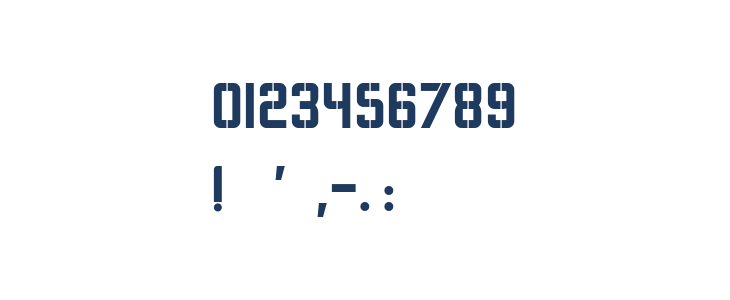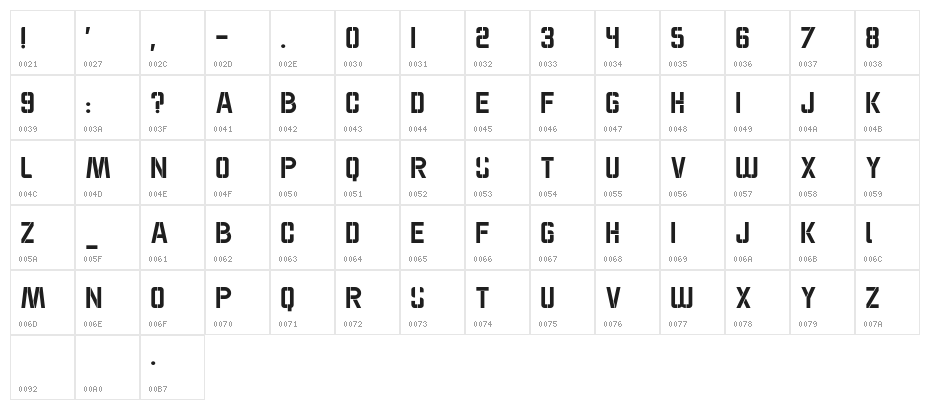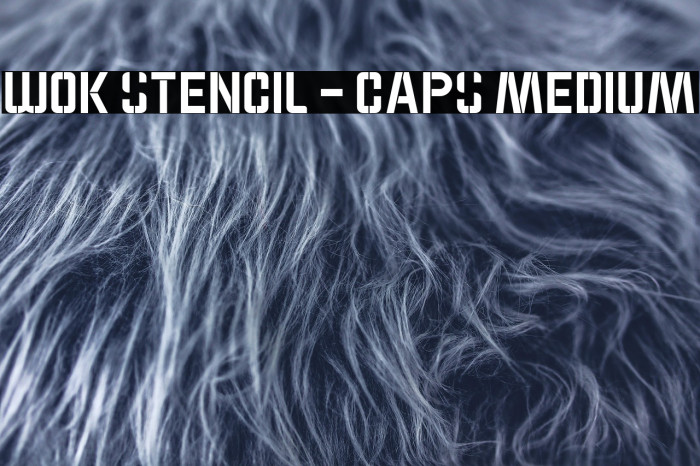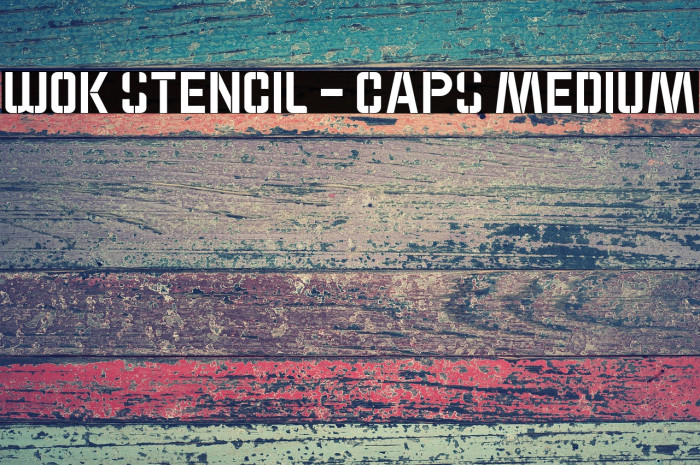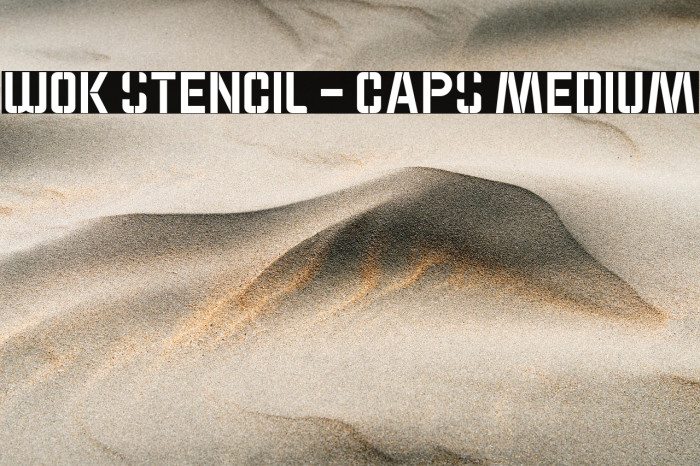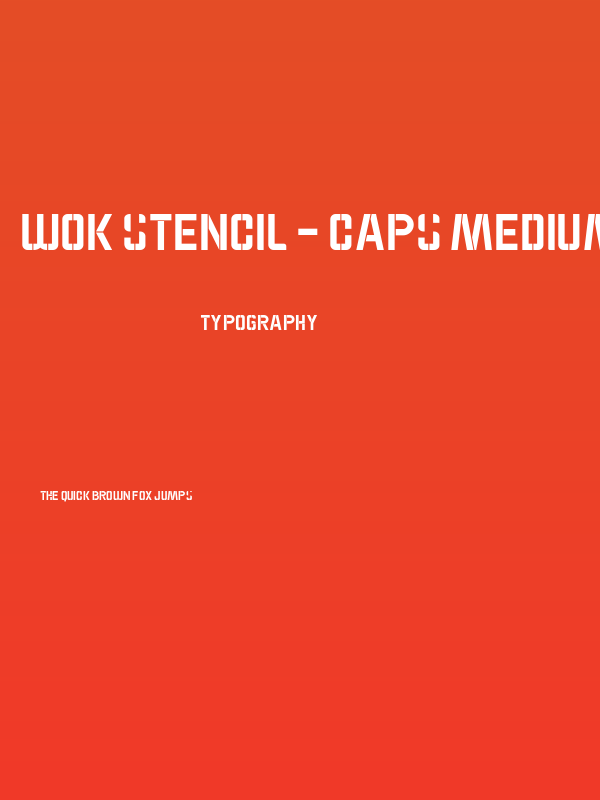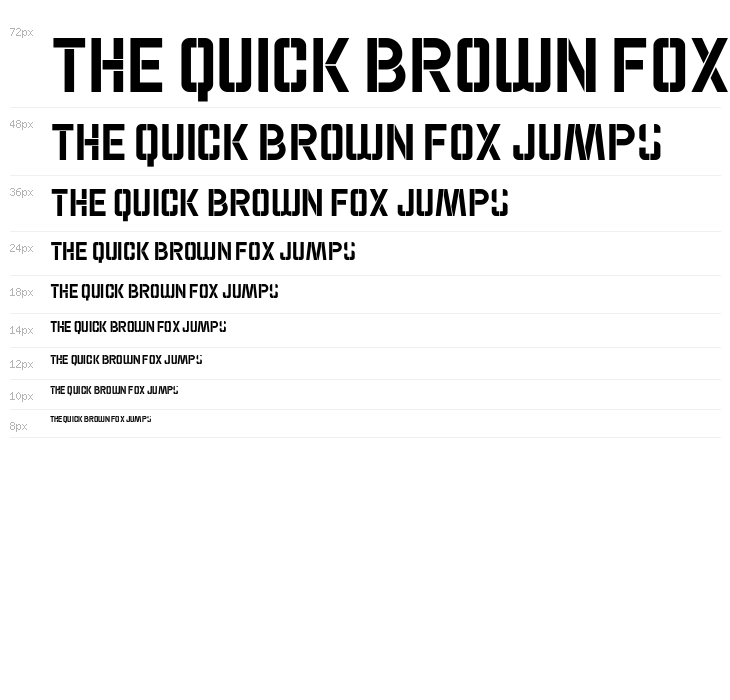
WOK STENCIL - CAPS Medium Font
WOK STENCIL - CAPS Medium Description
This font features a bold, stencil-like design with distinct geometric shapes and sharp angles. The uppercase letters are uniform in height, creating a strong, cohesive appearance. The characters have a modern, industrial feel, with cut-out sections that enhance the stencil effect. The numbers and punctuation maintain the same bold style, ensuring consistency across all characters. This font is highly legible and makes a striking visual impact, suitable for various design applications.